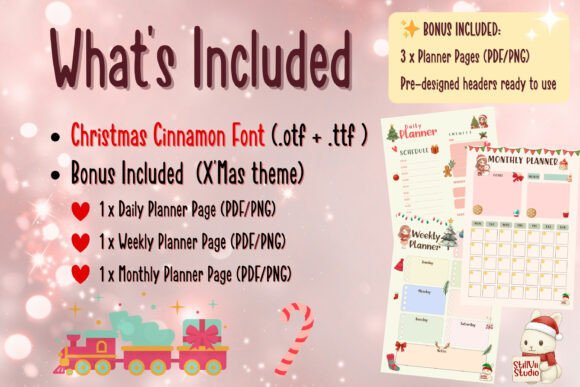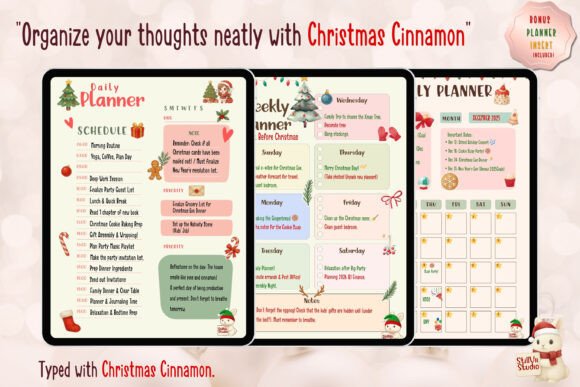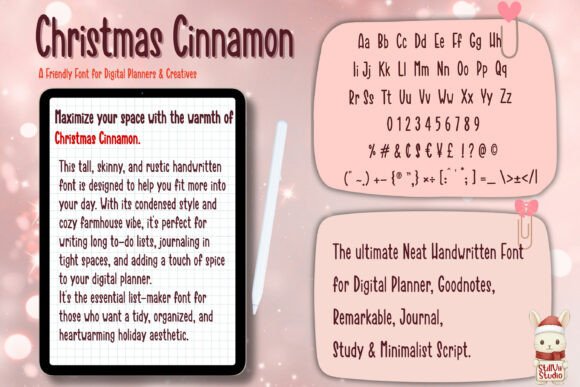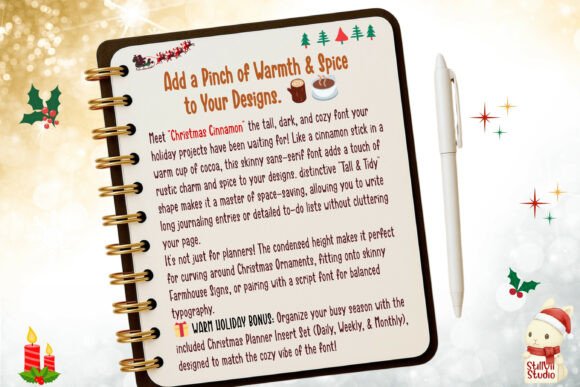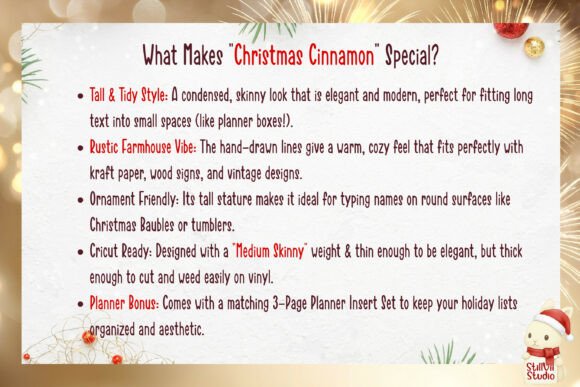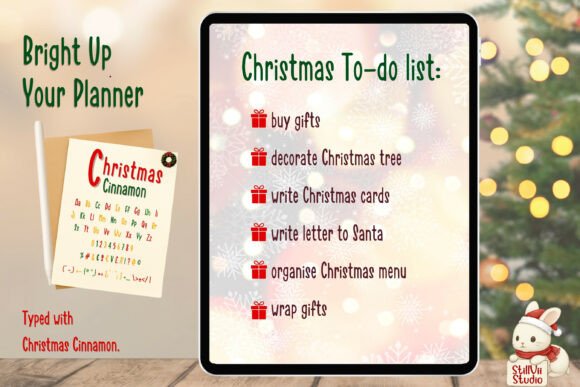
Introduction to Christmas Cinnamon Font
Add a Pinch of Warmth & Spice to Your Designs.
๐ชตโ Meet โChristmas Cinnamon,โ the tall, dark, and cozy font your holiday projects have been waiting for Like a cinnamon stick in a warm cup of cocoa, this skinny sans-serif font adds a touch of rustic charm and spice to your designs.
Key Features of Christmas Cinnamon Font
Why Choose Christmas Cinnamon Font?
Christmas Cinnamon Font offers exceptional quality and versatility, making it a valuable addition to your design toolkit. Whether you’re creating for personal projects or commercial use, Christmas Cinnamon Font delivers professional results.